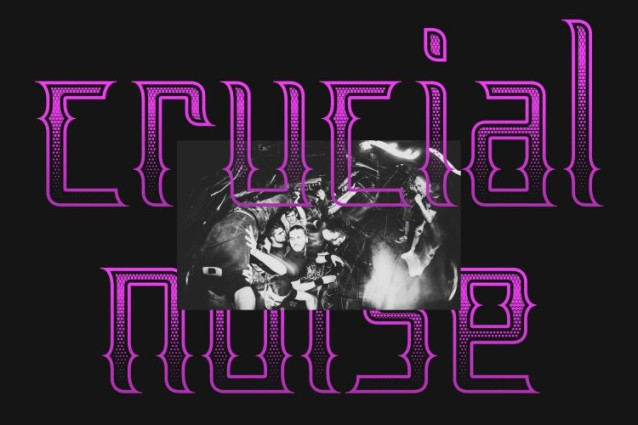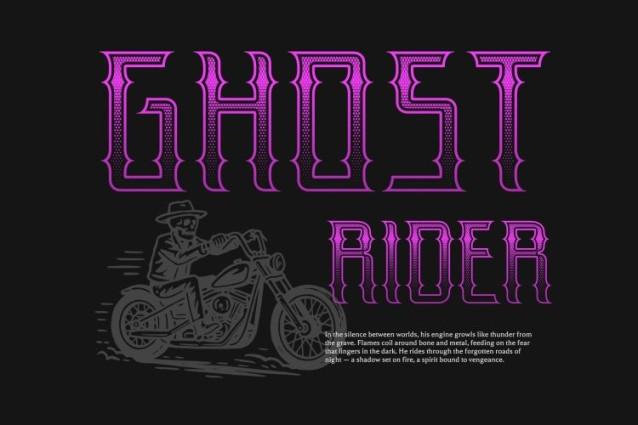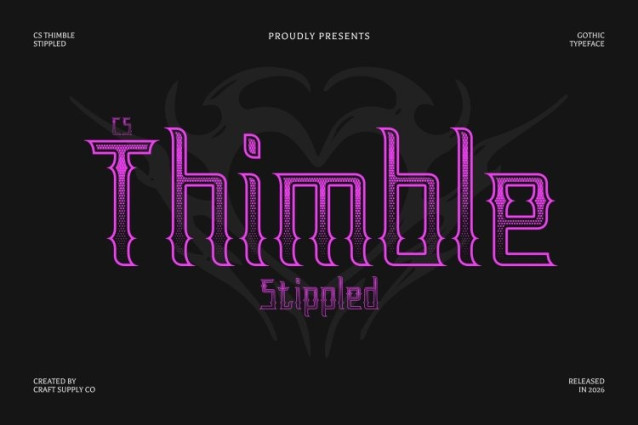
CS Thimble Stippled Font
CS Thimble Stippled Font is a captivating gothic display font that evokes the mystery and artistry of medieval typography. Its intricate letterforms feature elegant curves, ornamental details, and dramatic contrasts between thick and thin strokes. Enhanced with a stippled texture, the font gains a subtle dotted surface that adds depth and a handcrafted engraved character, enriching its dark and atmospheric presence.
Medieval Inspiration with Decorative Detail
Inspired by the beauty of traditional gothic script and medieval calligraphy, this font captures the essence of historical lettering. The ornate shapes and flowing structures create a sense of elegance and drama, while the stippled effect introduces visual richness that enhances the intricate forms. This combination gives the font a refined yet mysterious character.
Mystical Character with Historic Atmosphere
The detailed design and textured finish create typography that feels immersive and expressive. This font brings a powerful sense of storytelling, making it ideal for designs that explore fantasy, gothic, or historical themes while maintaining a sophisticated visual tone.
Perfect for Fantasy and Themed Designs
This font works beautifully for fantasy book covers, movie posters, themed event invitations, Halloween graphics, and heritage-inspired branding. By combining gothic elegance with textured stippled detailing, the font delivers a dramatic and enchanting typographic presence that draws viewers into a world of mystery and imagination.